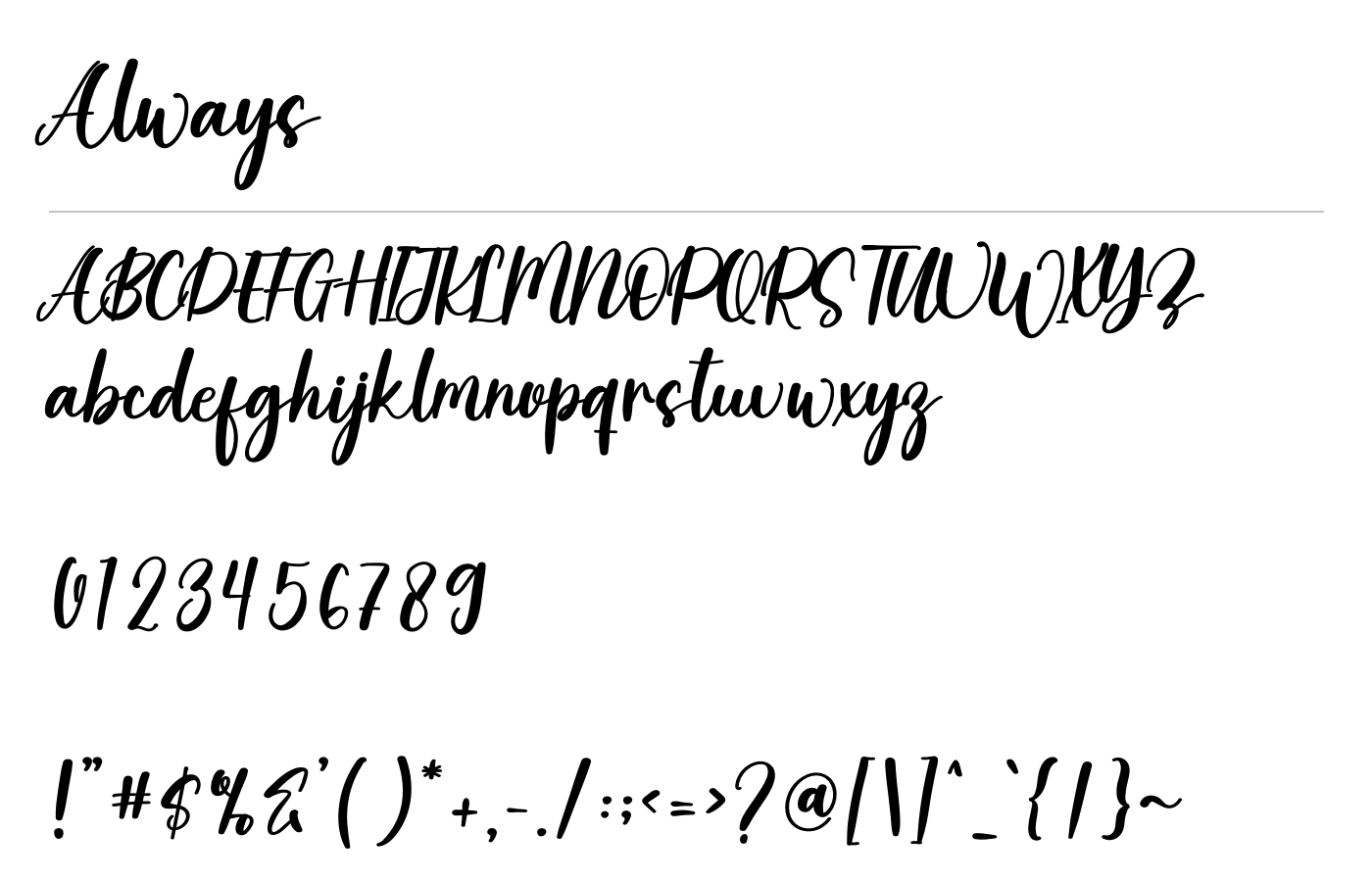
Always Font is a lively and elegant script typeface with smooth, flowing strokes that give it a handwritten charm. Its medium weight and balanced contrast make it versatile for stylish branding, invitations, and creative headlines where a personal, yet polished feel is desired. This font works beautifully in projects that aim for warmth and sophistication without losing a relaxed, approachable character.
Always Font